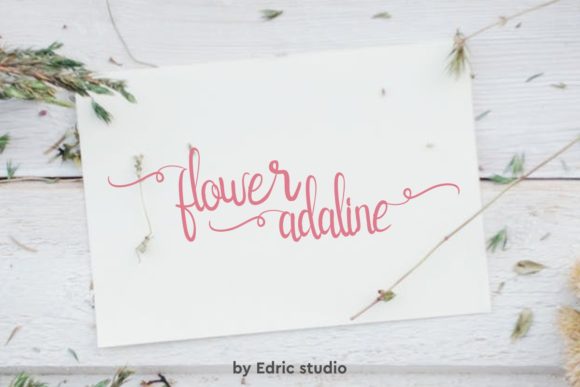
Introducing Flower Adaline, the exquisite script font that will blossom beauty into your designs!
Immerse yourself in a world of elegance and ethereal grace with Flower Adaline. This enchanting font, crafted with the utmost care by EdricStudio, is a true treasure. Its light and delicate touch will instill an air of sophistication and charm into any creation.
Escape the mundane and embrace the extraordinary with Flower Adaline. Let its graceful curves and whimsical flourishes captivate your audience, leaving an unforgettable impression. Whether it's a heartfelt message, a stunning invitation, or an eye-catching logo, Flower Adaline promises to add a touch of magic.
Indulge in the youthful exuberance of Flower Adaline. Its playful spirit and energetic flow will infuse your designs with a sense of joy and vitality. Let your imagination soar as you explore the limitless possibilities this enchanting font offers.
Unleash your creativity with Flower Adaline, the font that will transform your words into works of art. Its beauty and versatility will inspire you to create designs that resonate with your audience, leaving a lasting legacy of style and elegance.